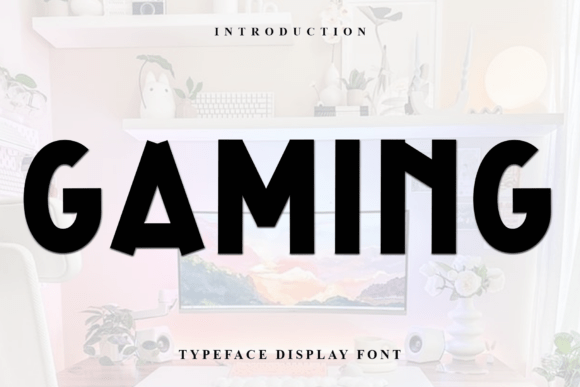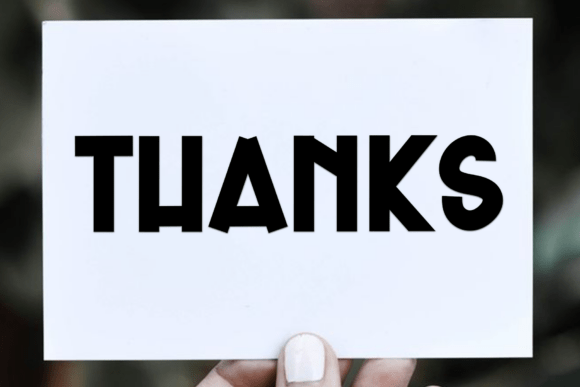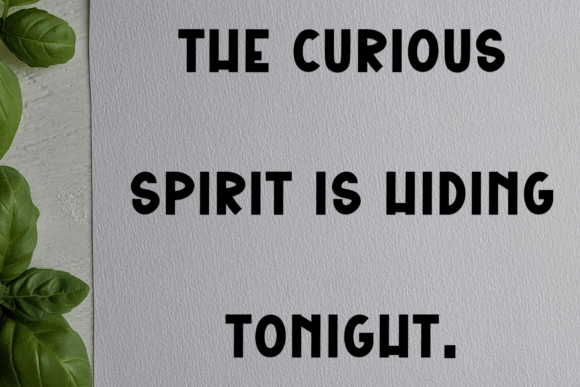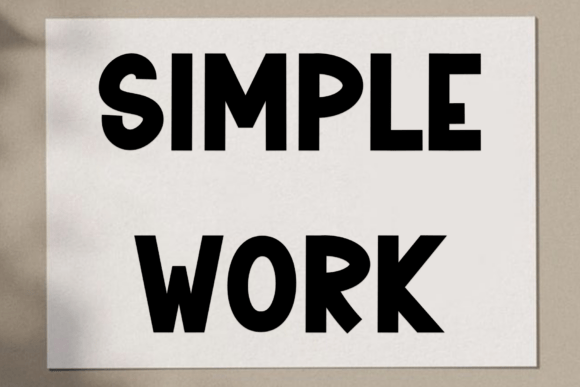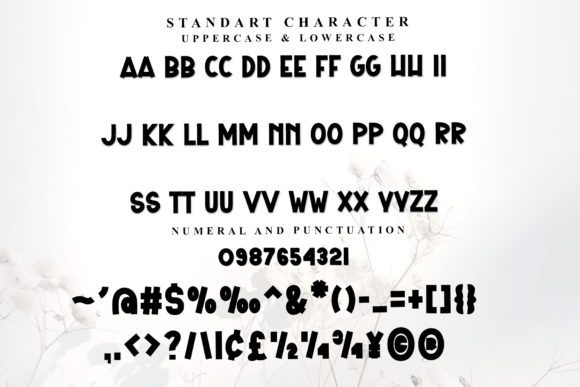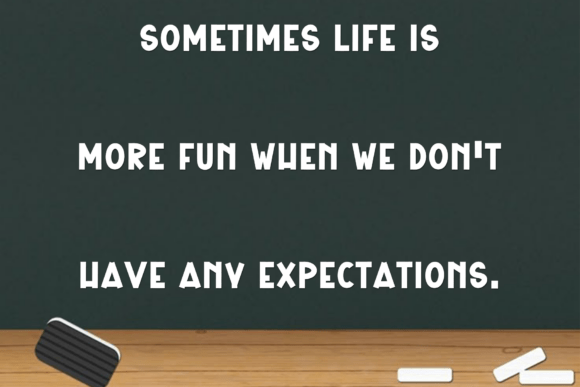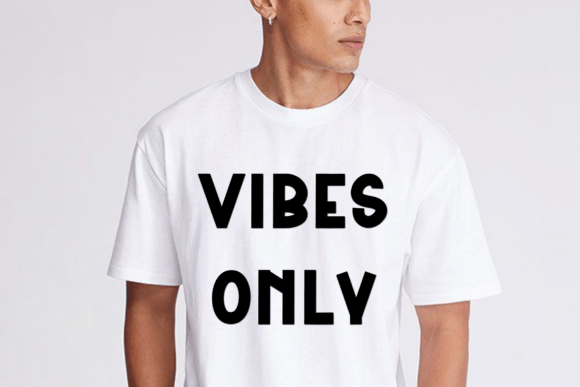
Gaming Font: The Ultimate Creative Companion
Have you ever stared at a blank canvas, feeling the urge to create something truly unique and eye-catching? For designers, this moment is all too familiar. It’s the spark that ignites the creative process, driving us to push the boundaries of what’s possible. And when that spark hits, you need a font that can keep up – a font that’s as versatile as it is beautiful.
Enter Gaming Font, a soft and unique typeface designed to bring your designs to life. With its distinctive strokes and varied characters, it’s the perfect companion for any creative project. Whether you’re working on a design project, crafting a custom font, or simply looking to add some personality to your work, Gaming Font is the ideal choice.
What makes Gaming Font so valuable to designers is its adaptability and compatibility with a wide range of applications. From Windows to open-source platforms, this natural font style is sure to enhance your designs and captivate your audience.
Gaming Font Key Features
- Font Family: Gaming Font is a custom-designed font family, specifically created for use in gaming and digital media.
- Font Size: Designed to be highly legible at small font sizes, making it ideal for use in menus, HUD elements, and other in-game text.
- Resolution: Optimized for high-resolution displays, including 4K and retina screens, ensuring crisp and clear text rendering.
- Unique Characteristics: Features a bold, futuristic design with distinct lines and shapes, making it highly recognizable and engaging for gamers.
Gaming Font Review
I recently had the chance to work with the Gaming Font, and I must say, it’s an interesting choice for gaming projects. Here’s my honest take on it.
- The font is highly legible, even at small font sizes, making it perfect for HUD elements and other on-screen text.
- The font has a futuristic feel to it, which fits well with the gaming theme.
- It’s available in a range of weights, from light to bold, giving you flexibility in your design.
- The font can feel a bit generic, lacking the unique character that some other fonts bring to the table.
- The font’s design, while futuristic, may not be to everyone’s taste.
- There’s limited support for non-ASCII characters, which could be a problem for games with international appeal.
Gaming Font is a solid choice for gaming projects, but it may not be the best fit for every game. Its legibility and range of weights make it a great option for HUD elements and other on-screen text, but its generic design and limited support for non-ASCII characters may hold it back from being a top choice. Overall, I’d give it 3.5 out of 5 stars.
Gaming fonts are commonly used in:
1. Video game titles and logos.
2. Gaming website and social media graphics.
3. Gaming event and convention materials.
4. Gaming-themed merchandise and packaging.
1. Experiment with different font styles and combinations to create a unique look.
2. Use gaming fonts to add a touch of nostalgia or retro flair to your design.
3. Pair gaming fonts with bold, bright colors to create a visually striking design.
Comparison to Gaming Font: Pixelated font is more versatile and can be used in a wider range of design contexts. Gaming font is more specific to the gaming industry and may not be suitable for all design projects.
8-Bit Font
8-bit font is another digital font that originated from the early days of video games. It’s characterized by its blocky, pixelated appearance. 8-bit font is ideal for designers who want to create a futuristic or sci-fi feel in their designs. It’s also more versatile than gaming font and can be used in various design contexts.